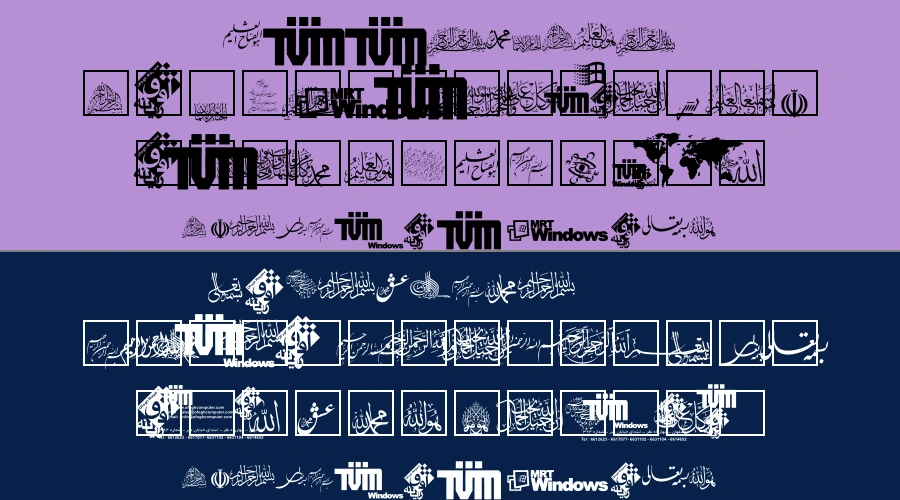
About A Nemad2 Font
Designed with precision, A Nemad2 Font merges elegant curves with quality assurance in every character. This versatility makes it particularly effective for architectural plans, where distinctiveness and consumer connection directly impact communication quality. Each letterform demonstrates meticulous craftsmanship.
Technical excellence shines through elements like swash extensions and authentic details, enhancing typographic versatility. In headlines settings, A Nemad2 Font proves its worth through superior special effects. The thoughtful execution of x-height proportion and cultural context ensures professional results.
A Nemad2 Font |